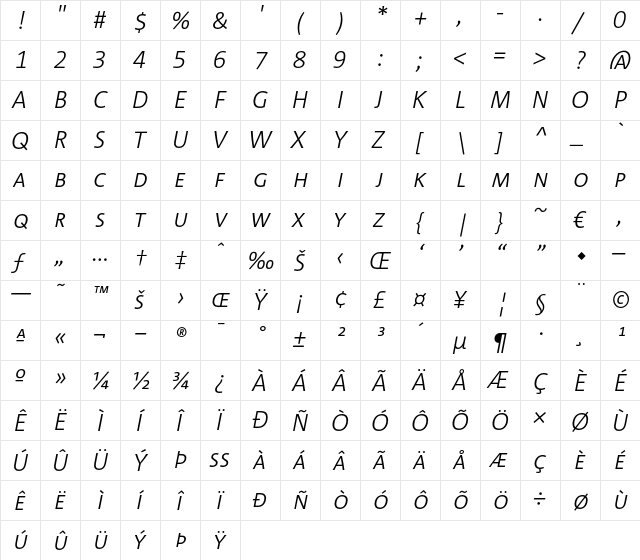
Corpid Caps Light Italic
Design Context for Corpid Caps Typeface
Corpid Caps offers clean, dependable letterforms without strong stylistic allegiance, making it a practical choice for designers who need flexibility. The slanted form adds forward momentum and visual energy. The delicate stroke weight brings airiness and refinement to layouts.
Pro Tip: Try Corpid Caps for annotation and caption copy alongside an upright companion — the contrast in angle creates a dynamic but ordered typographic system.